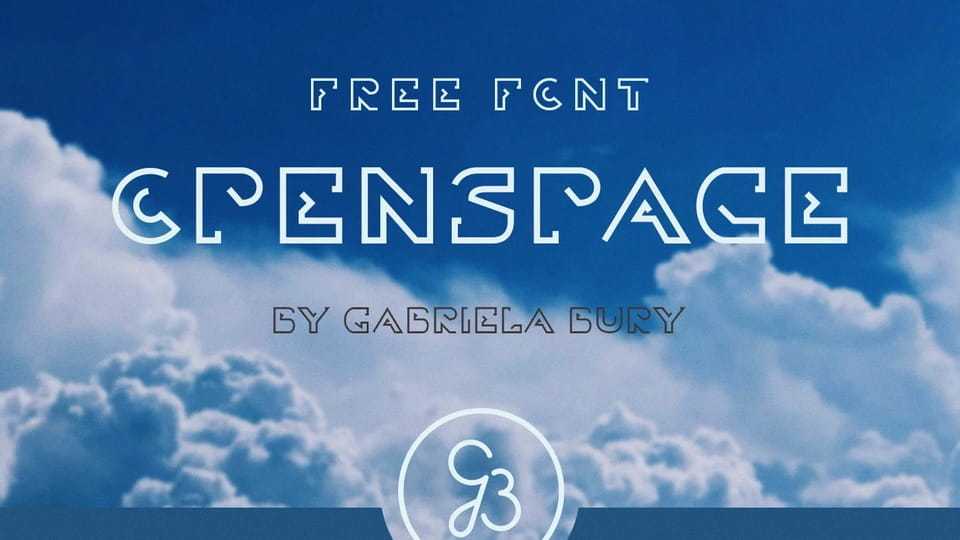
Download Openspace font, a futuristic geometric typeface built from scratch with a strong structural logic and distinctive letter construction. Its sharp angles and modular forms create a technological and forward-looking mood.
Designer: Gabriela Bury